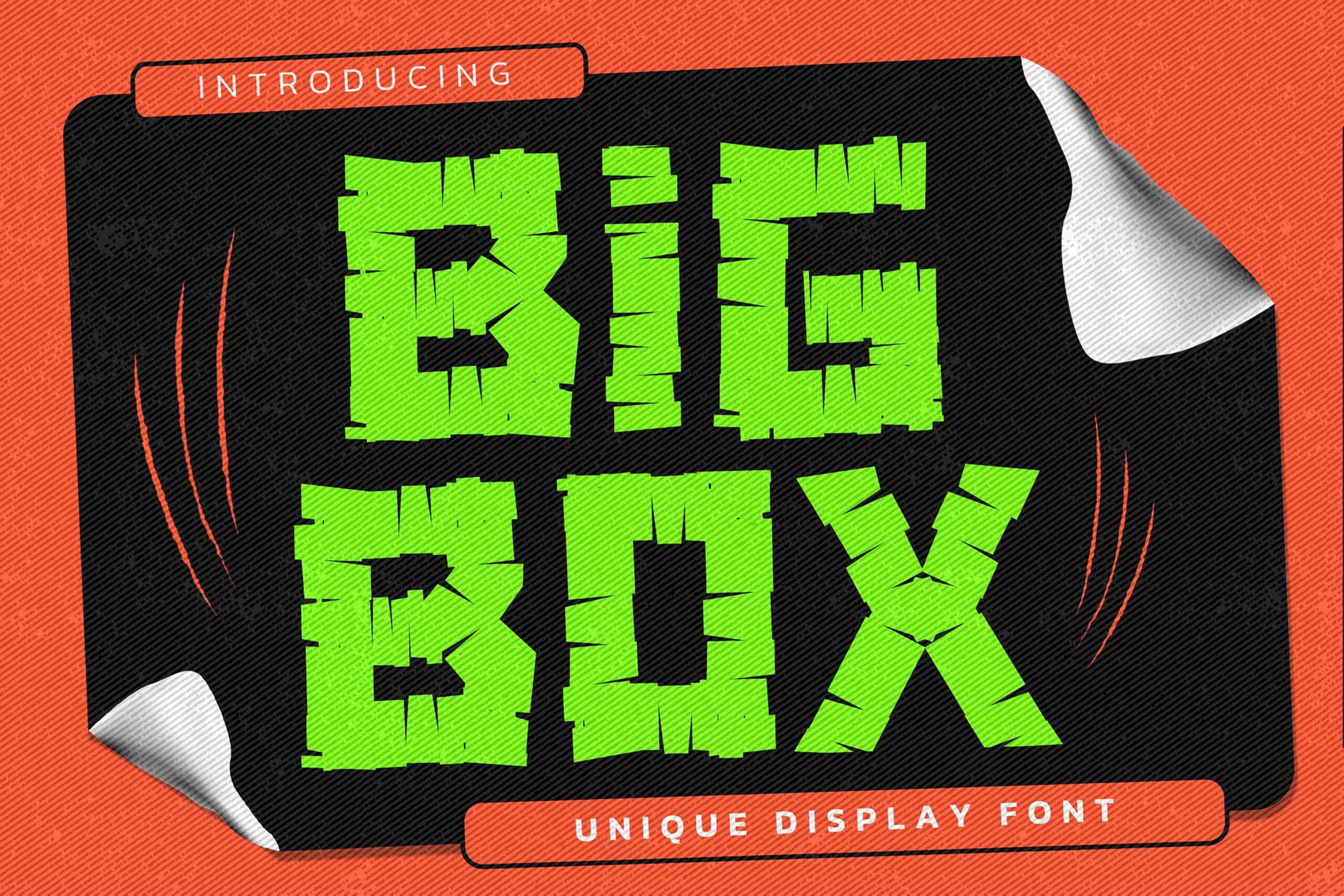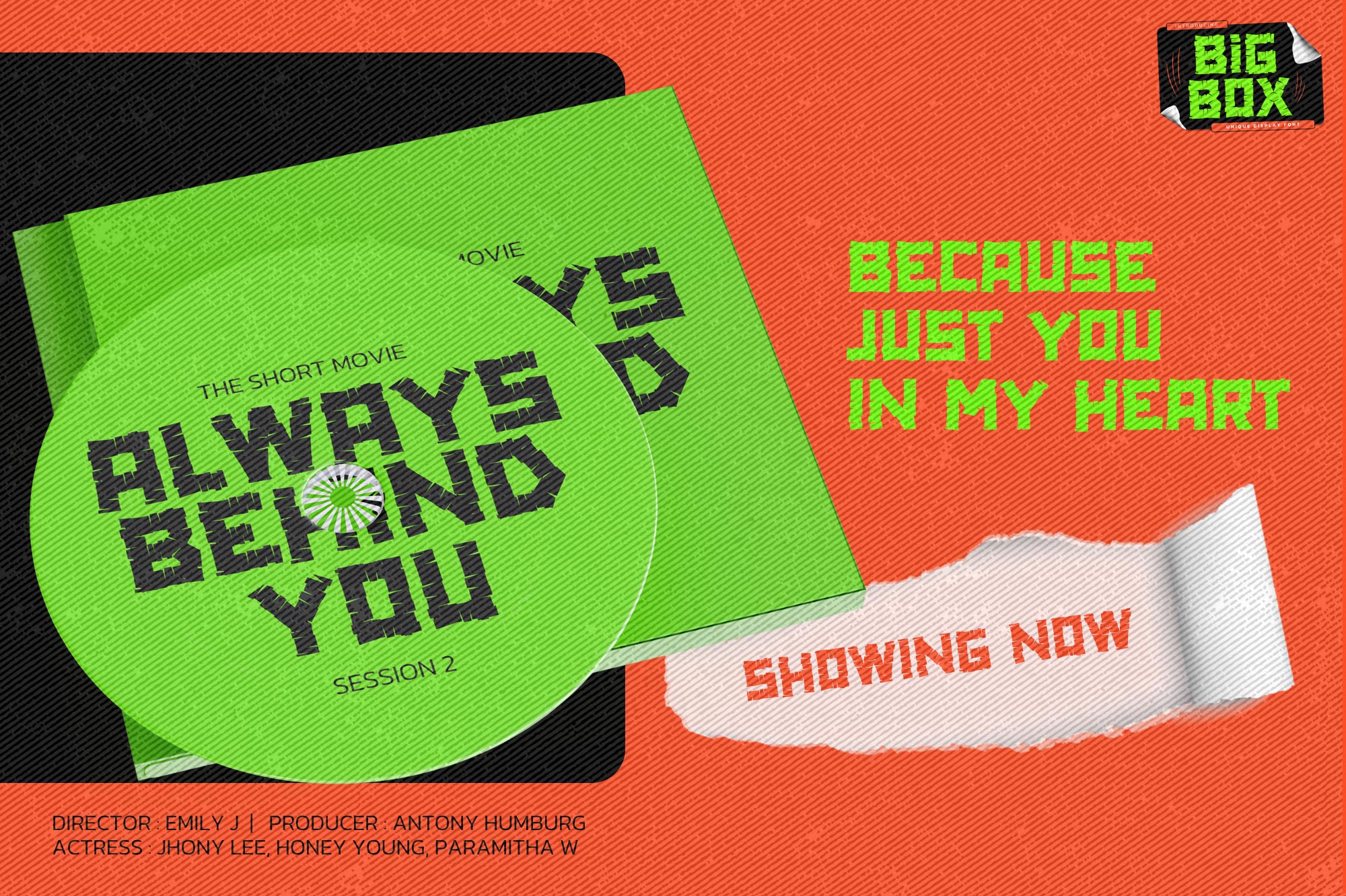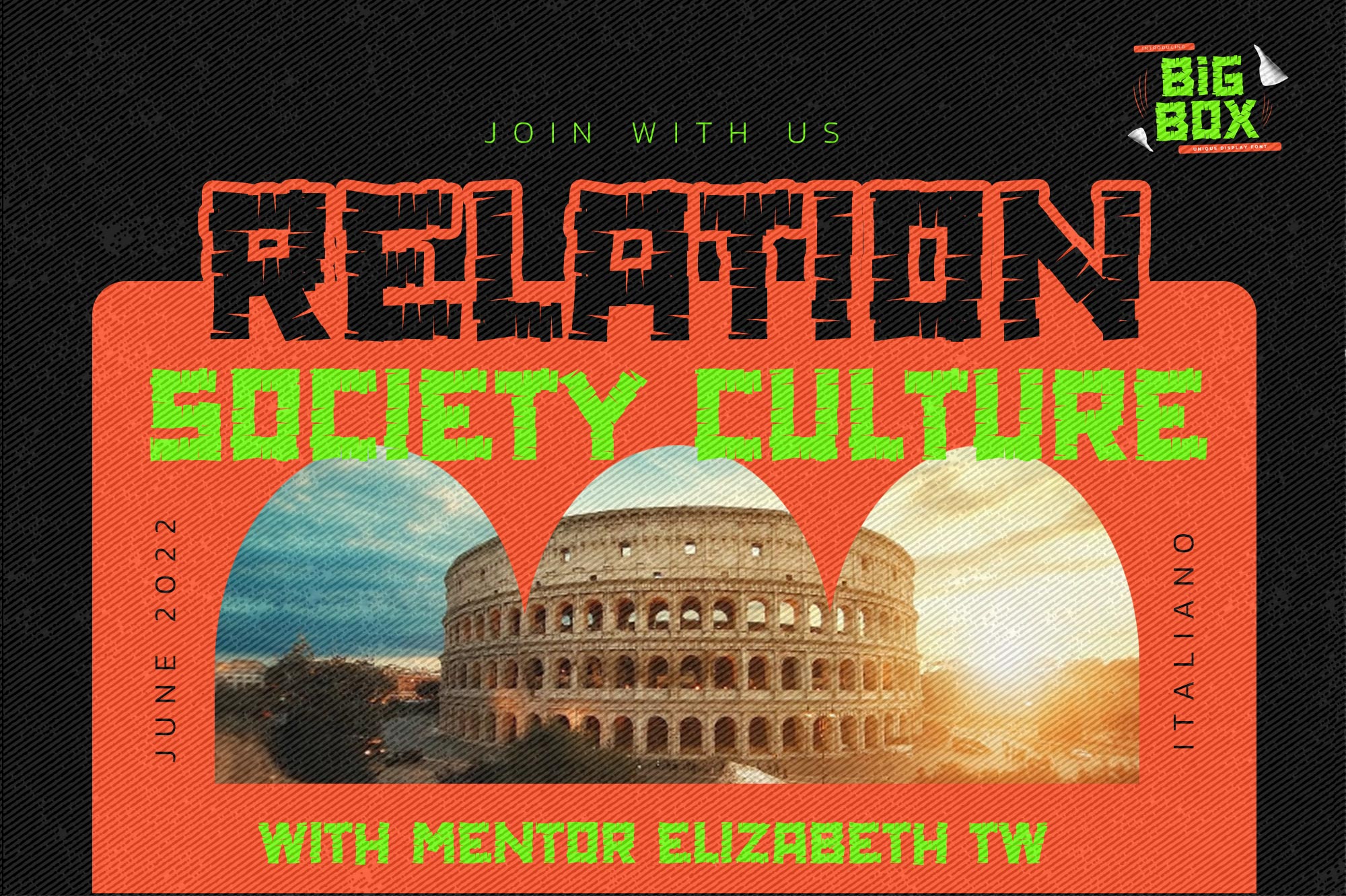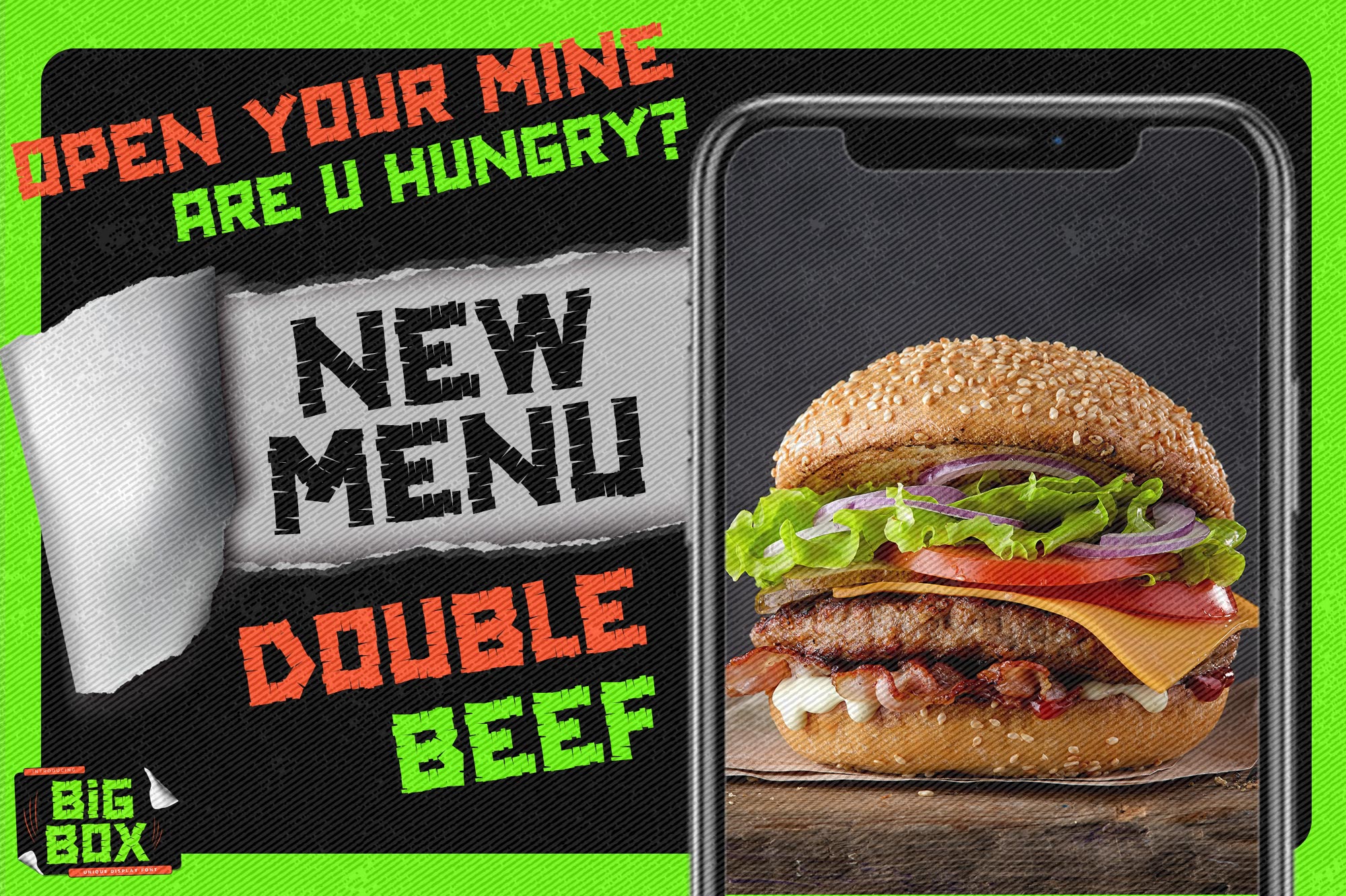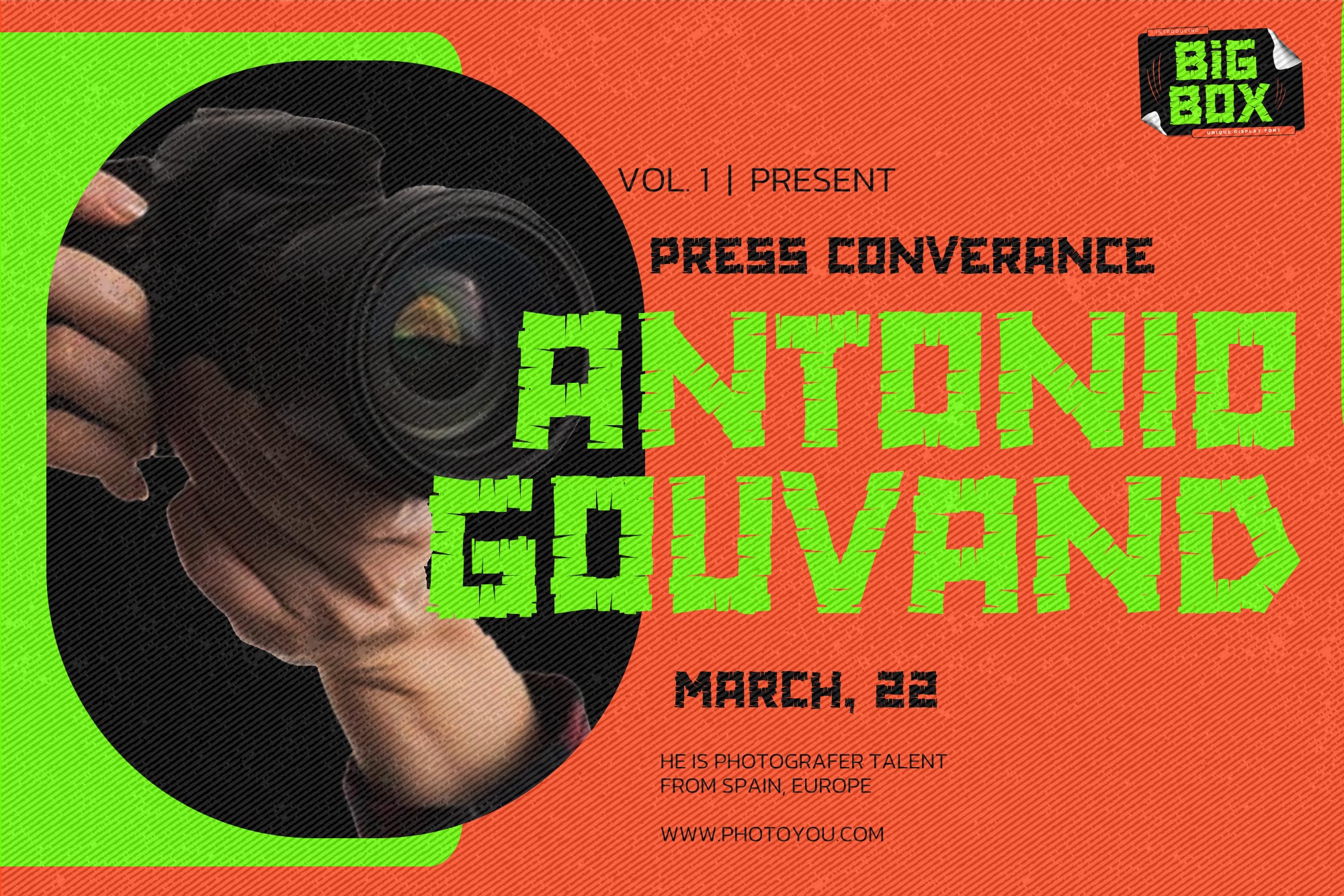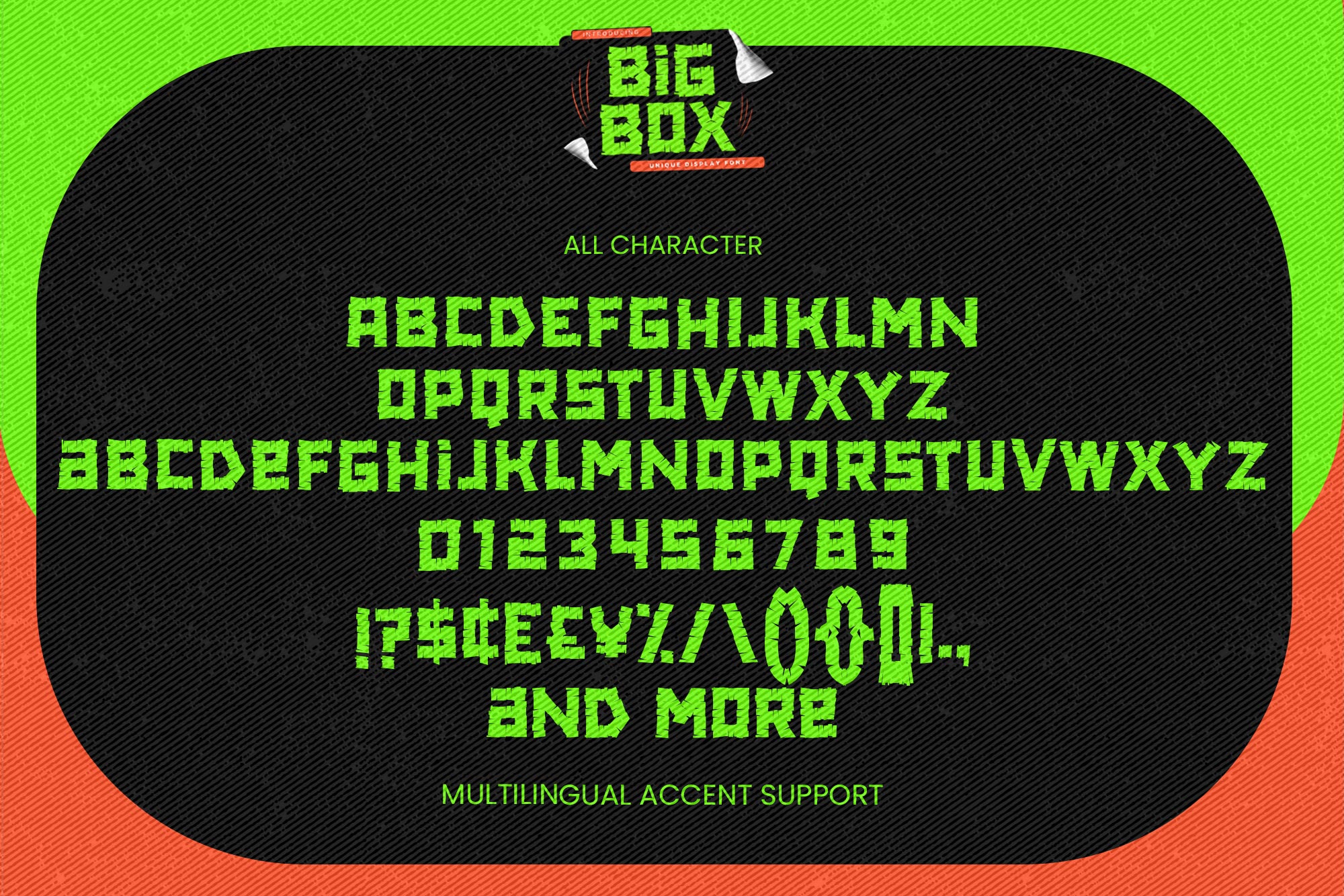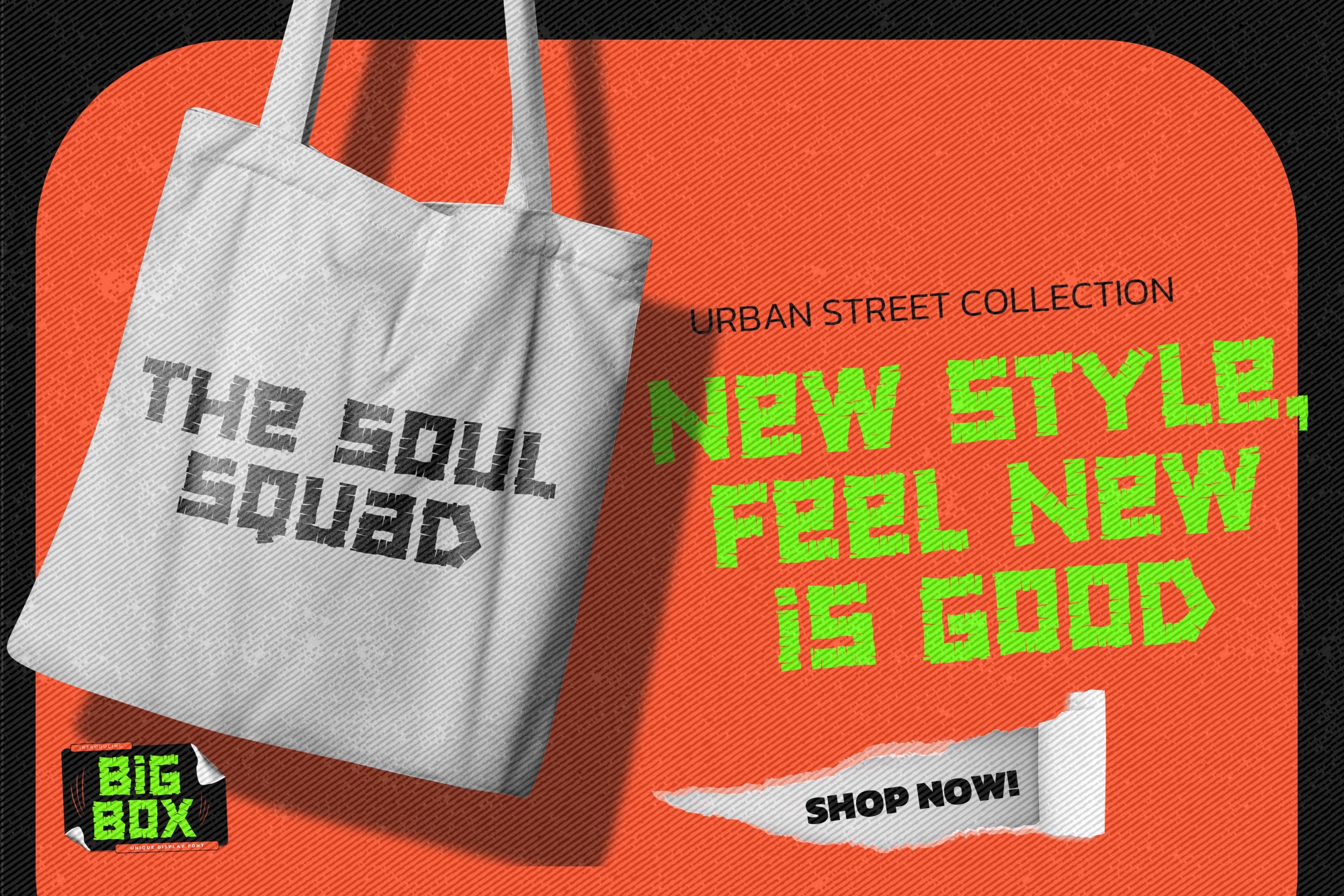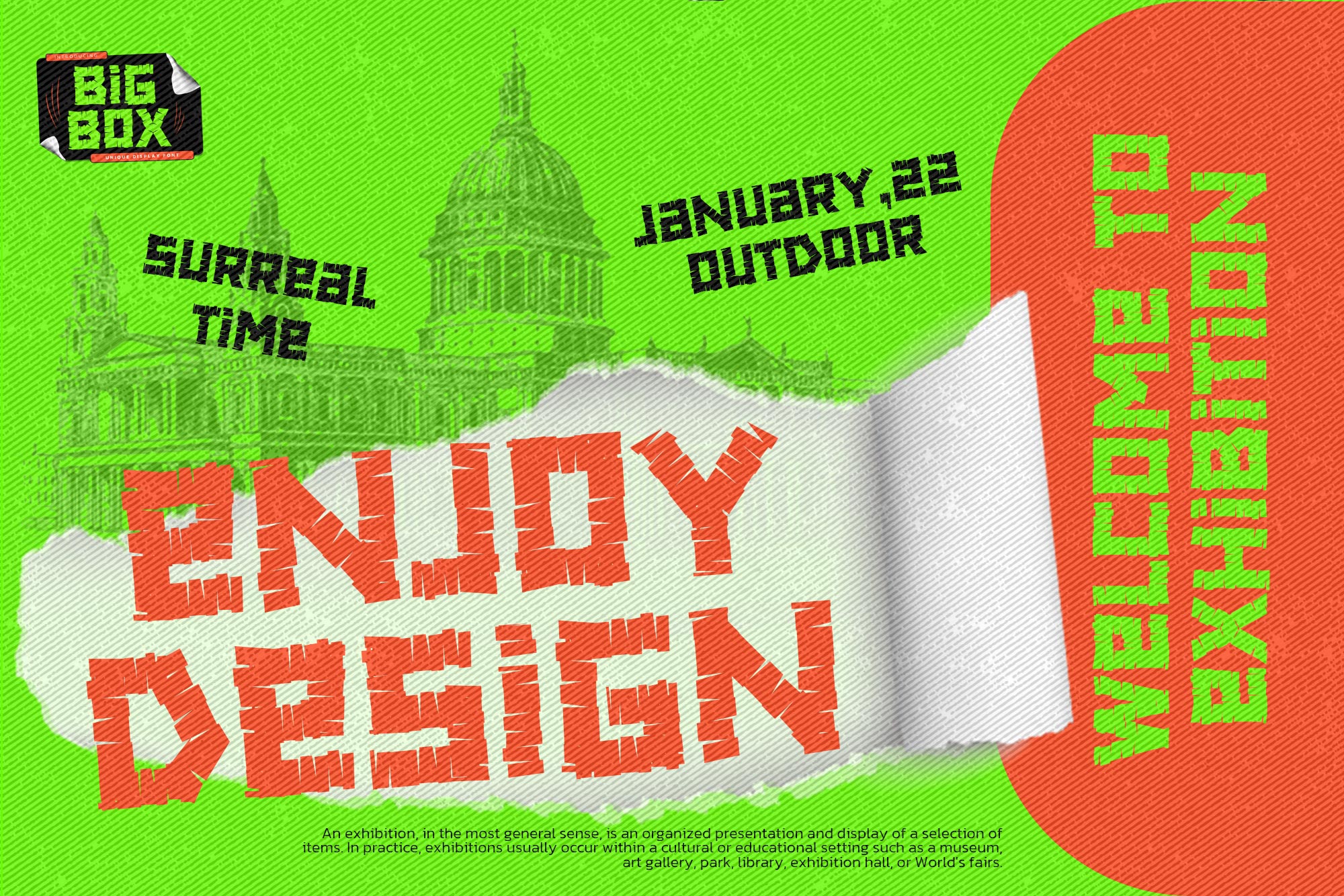
BIG BOX – Unique Display Font,modern style and creative movement that is written casually and quickly.
The best for logo ,poster, project , designs look modern, unique and authentic sans. It’s perfect for labels, quotes, posters, DIY projects, branding, packaging, greeting cards, websites, photography overlays, signs, scrapbooking, tags and so much more! That is why BIG BOX has a cool , and authentic characteristic more natural look.